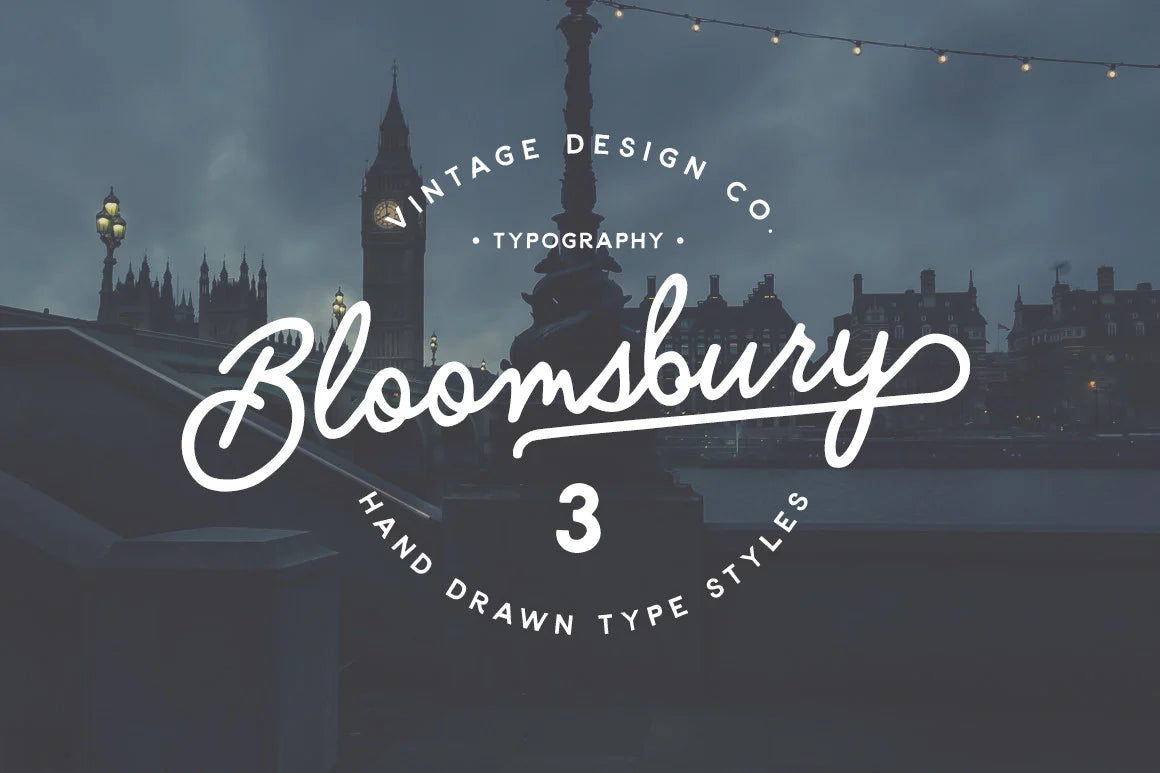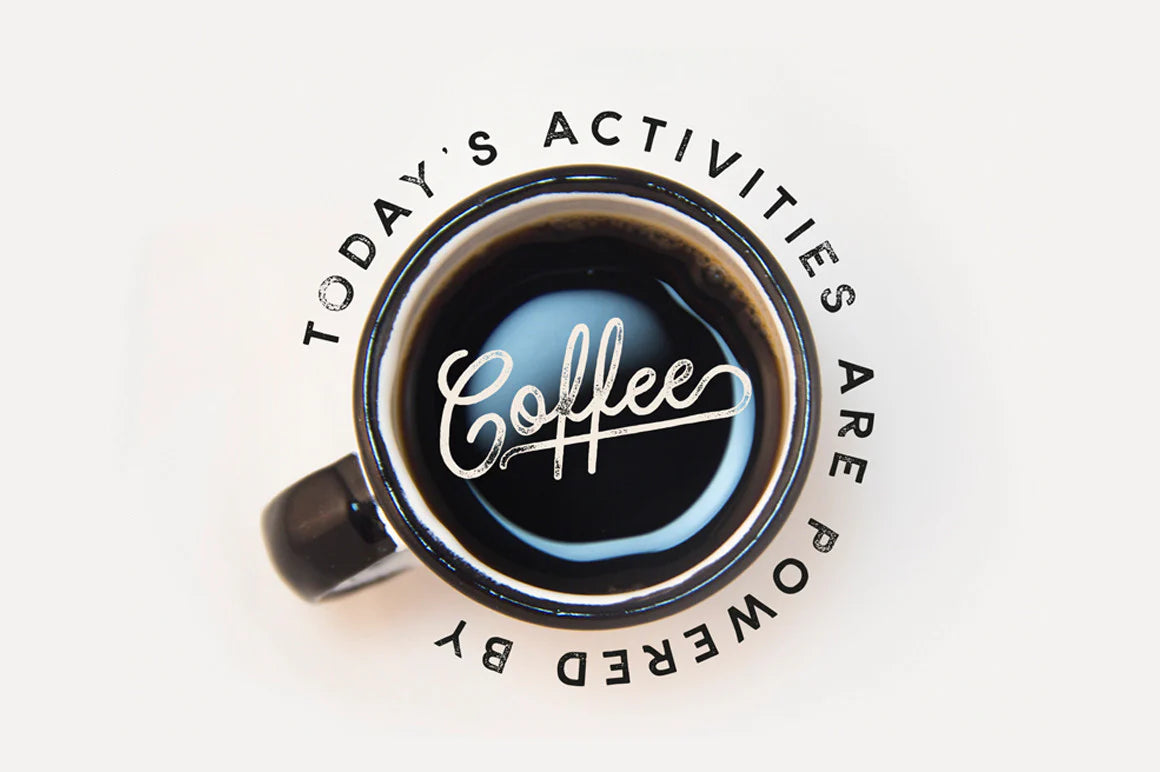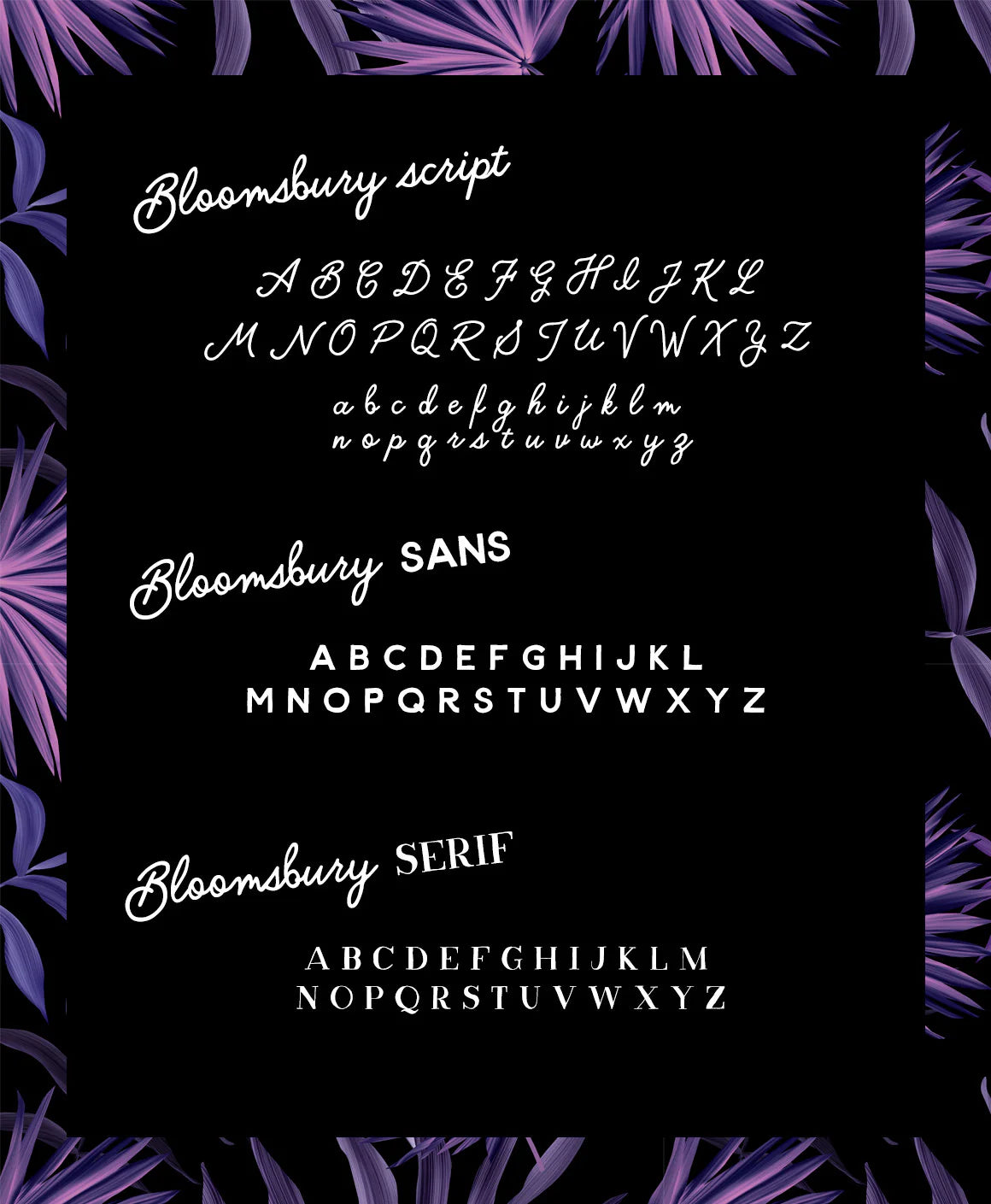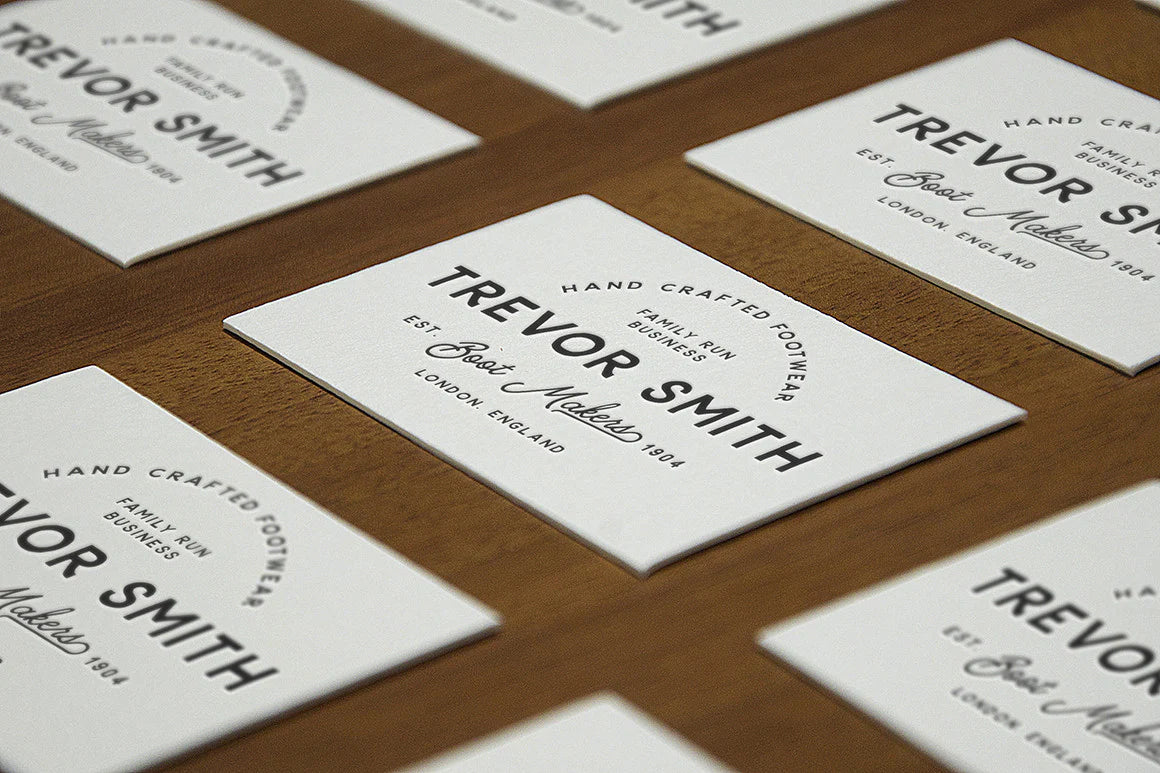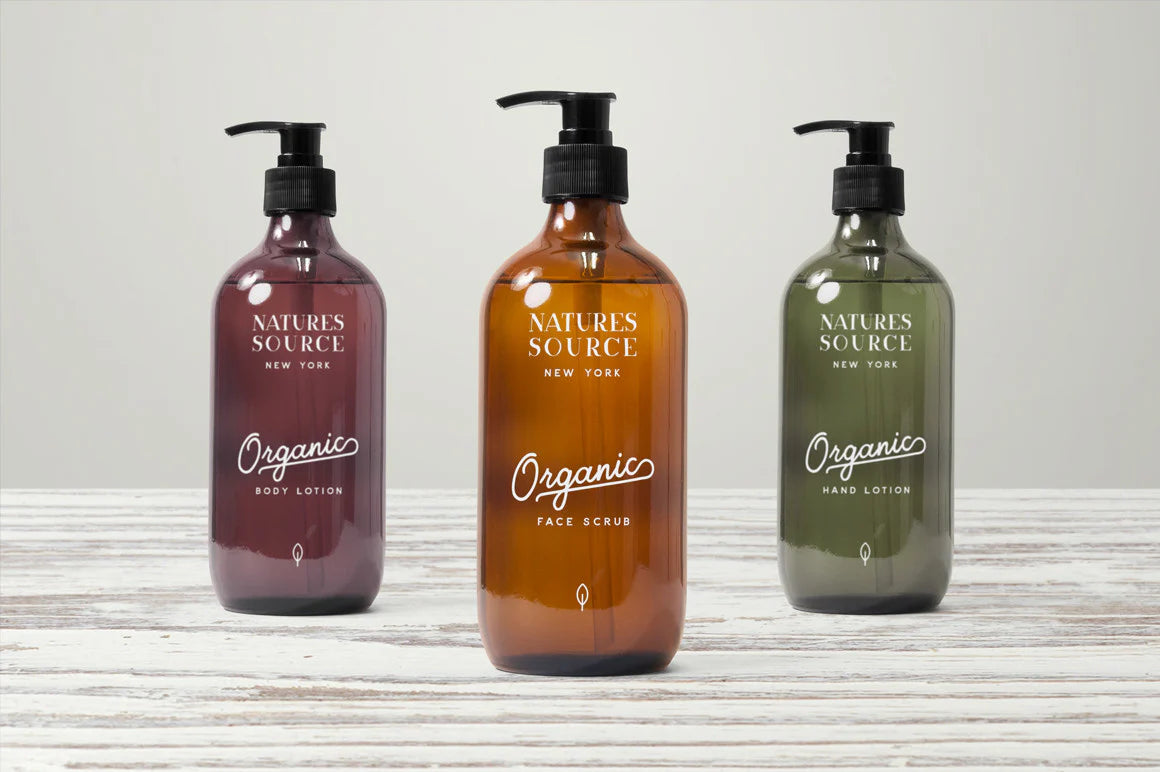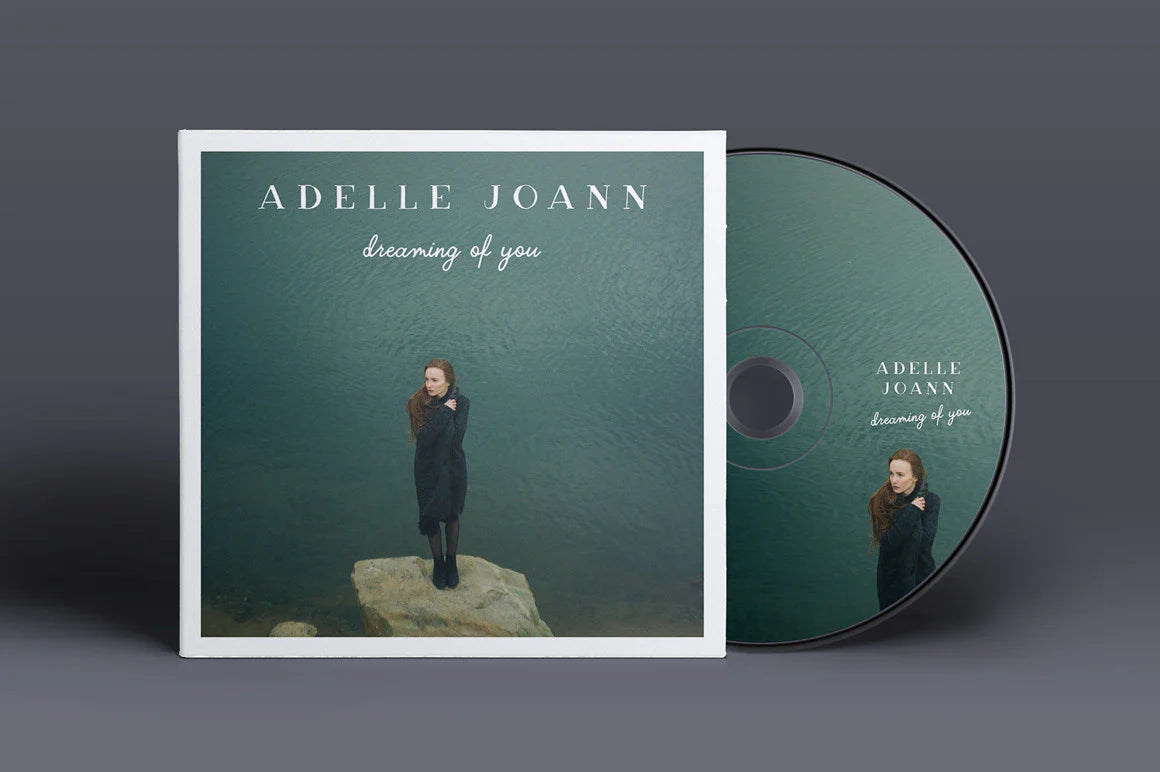
Bloomsbury - Script, Sans & Serif
Bloomsbury - A hand drawn typeface in 3 styles - Script, Sans & Serif
Use in combination with each other to make awesome type designs for logos, posters, album covers, packaging, Instagram posts, etc.
The script version includes 3 different sized end letter flourishes.